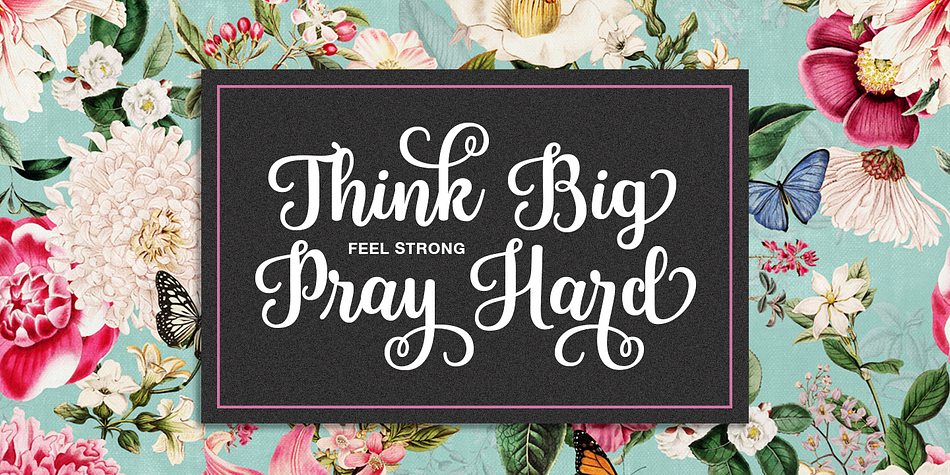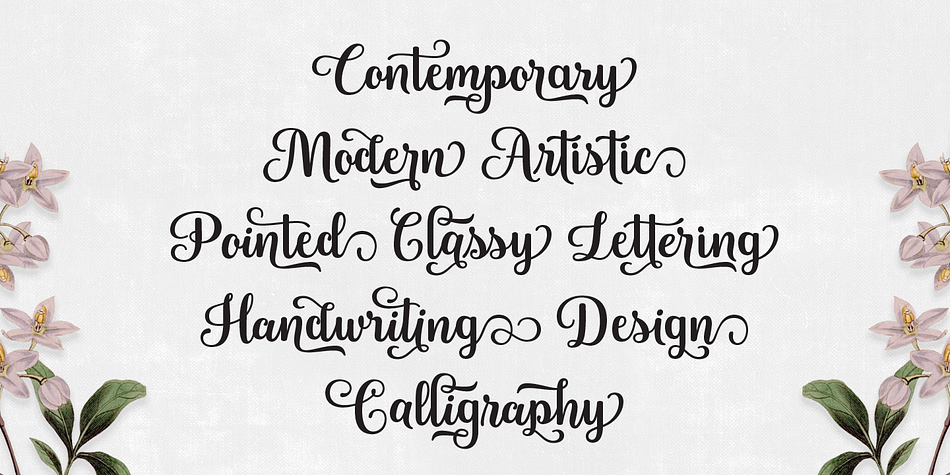
Blanton Script
Blanton Script is a script font family. This typeface has three styles and was published by Ajibatype.
Blanton Script is modern script font with dancing up and down the baseline. that comes with lovely alternates. It has a casual and elegant touch. This font is PUA encoded which means you can access all glyphs and swashes with ease! Works perfectly for logos, fashion, stationery, letterpress, magazines, menus, books, invitations, wedding / greeting cards, packaging, labels, apparel, marketing etc. Blanton Script features 730+ glyphs and 517 alternate characters. including initial and terminal letters, alternates, ligatures and multiple language support.